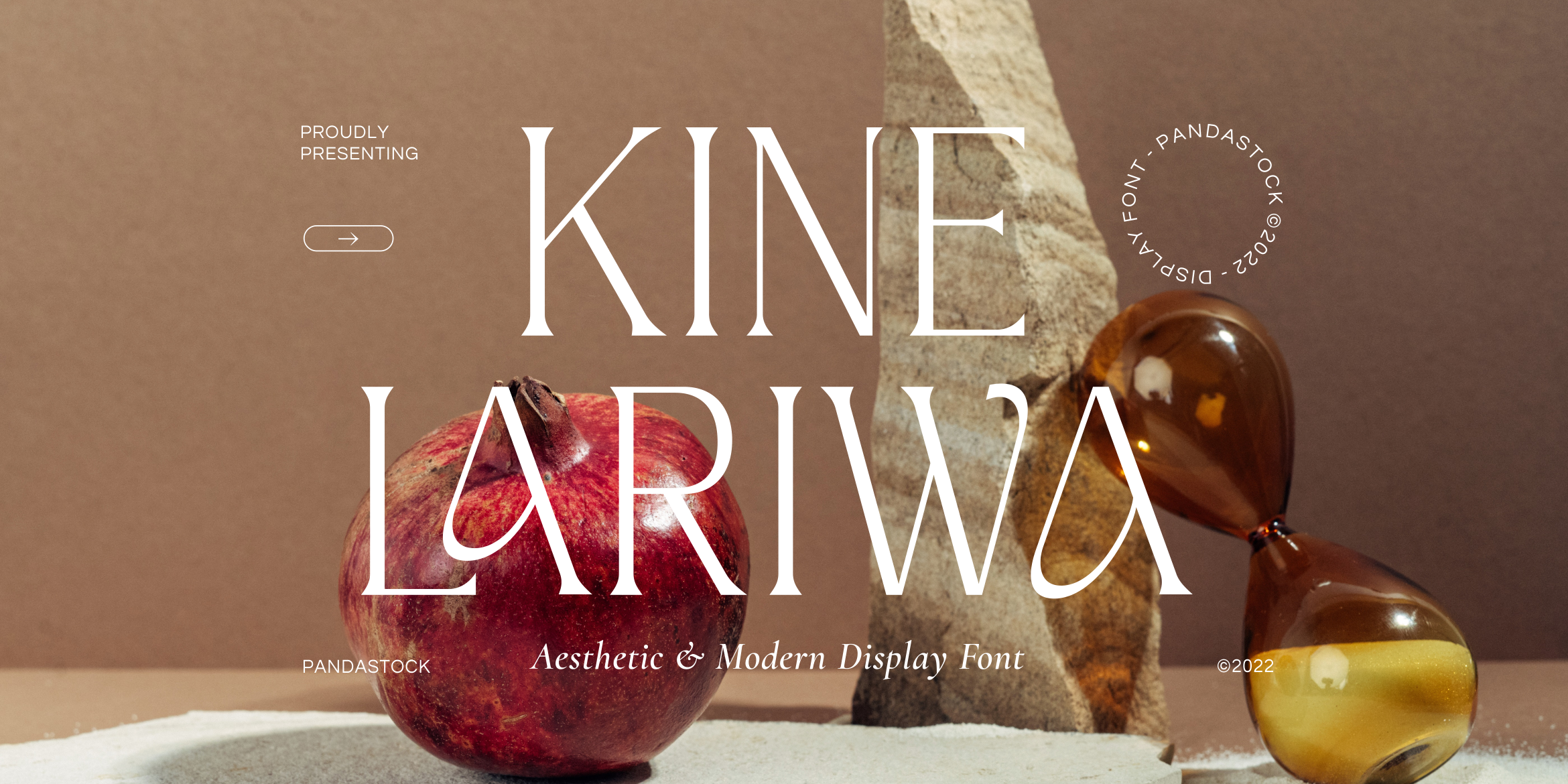
The Kine Lariwa Font is ideal for cinematic design projects including movie title sequences, film festival materials, documentary presentations, video production company branding, entertainment industry marketing, cinematography portfolios, media streaming platforms, and motion picture promotional campaigns. This dynamic typeface brings authentic film industry character and cinematic sophistication to any design project celebrating visual storytelling and motion picture artistry.
What makes Kine Lariwa Font so exciting is its captivating embodiment of cinema heritage with letterforms that capture the essence of film production and visual storytelling excellence. The letters feature cinematic proportions with movie industry influences that create an immediate sense of entertainment authenticity and professional film production values. This distinctive cinematic character makes it perfect for brands and projects that want to communicate visual storytelling expertise, entertainment industry credibility, and the compelling appeal of professional cinematography and film production.
The Kine Lariwa Font family typically includes regular and bold weights, often with cinematic variations and film industry-inspired decorative elements. Many versions feature movie symbols, cinematography glyphs, and entertainment design elements that enhance its authenticity for film and media applications.
Whether you're designing for film studios, entertainment companies, or media production services, Kine Lariwa Font Free Download provides the perfect solution for projects that need to convey cinematic excellence and film industry professionalism. This font transforms standard entertainment content into compelling designs that immediately communicate visual storytelling mastery, film production expertise, and the sophisticated appeal of cinema artistry to audiences passionate about movies and visual entertainment experiences.